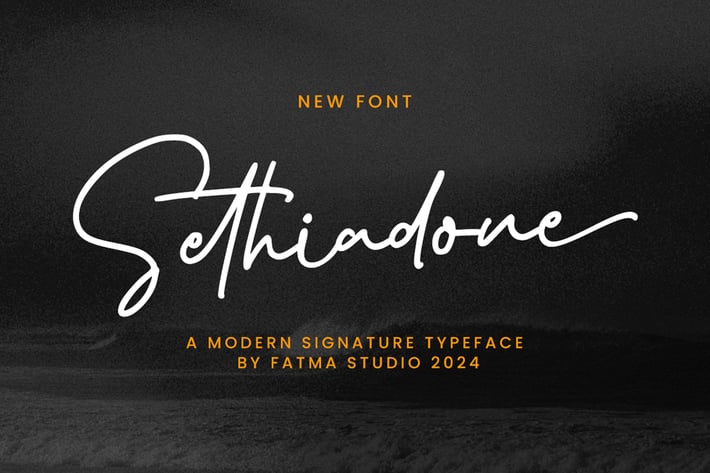
Sethiadone - Signature Font
Sethiadone is a beautiful light handwritten font with a unique feel and a stunning impact. It will add a luxury spark to any design project that you wish to create!
Ligatures, Swash, Alternates